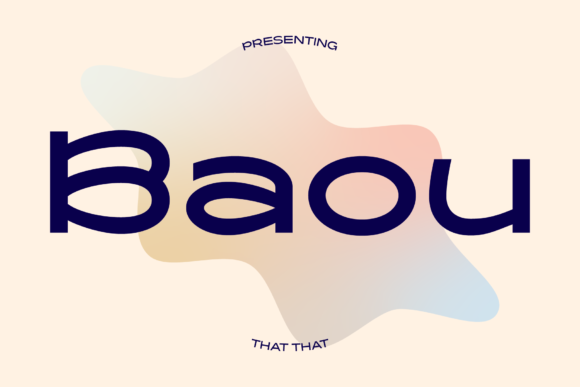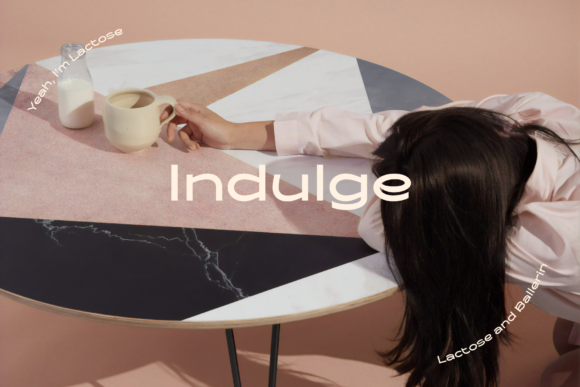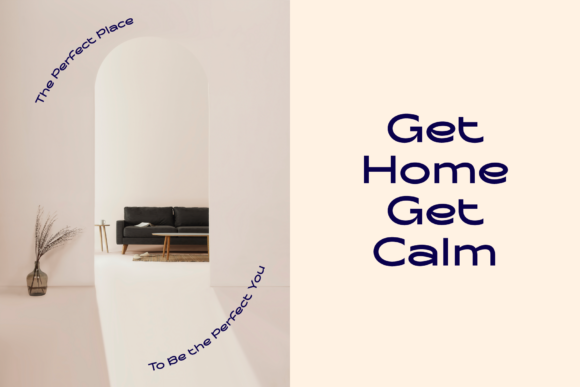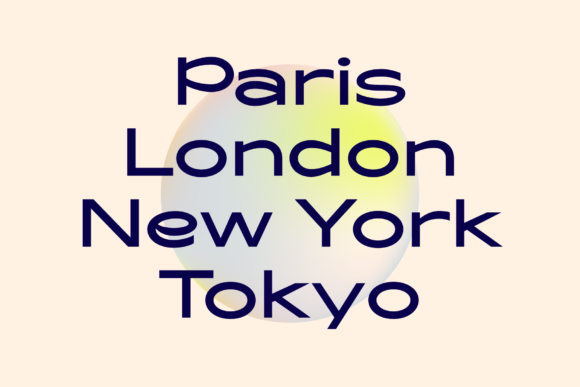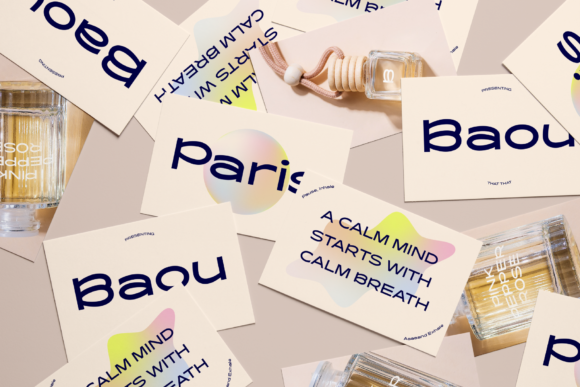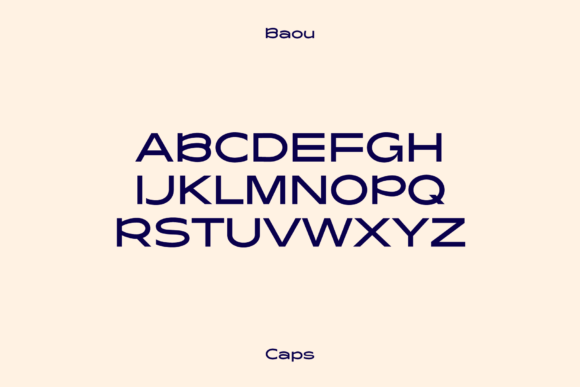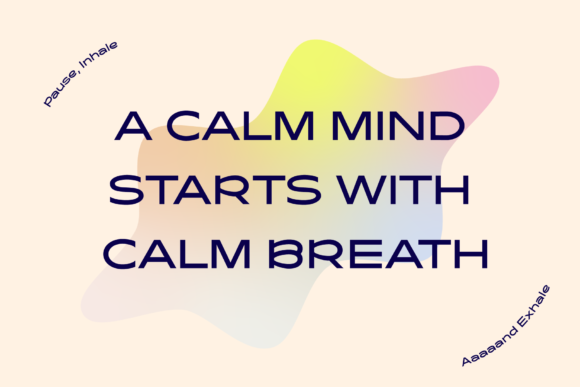
The Perfect Font for Making Your Creative Mark
Have you ever stared at a blank page, trying to conjure up the perfect font to match your vision? You know, that elusive combination of style and legibility that elevates your design from ordinary to extraordinary? That’s exactly what Baou Font is designed to deliver. With its bold, modern sans-serif style, this versatile font is perfect for making your creative mark on the world.
Whether you’re a seasoned designer or just starting out, Baou Font offers the perfect balance of personality and professionalism to take your designs to the next level. Its unique pinched curves and vertical terminals give it a distinctive edge that’s sure to grab attention. And with its super-wide pool of applications, you can use Baou Font to create stunning visuals for everything from Instagram posts to product labels.
Baou Font Key Features
- Font Family: Baou is a sans-serif font family designed for digital use.
- Font Size: Offers 7 weights ranging from Light (300) to Black (900), with corresponding italic styles.
- Resolution: Optimized for screen use at resolutions up to 300 DPI.
- Unique Characteristics: Baou features a clean and modern design with subtle rounded edges, making it suitable for a wide range of digital applications.
- Language Support: Supports a broad range of languages, including Latin, Cyrillic, and Greek scripts.
Design Review: Baou Font
As a designer, I was excited to dive into the Baou Font and see what it has to offer. Here’s my honest review:
- Unique Character Set: Baou Font has a distinct, quirky character set that’s perfect for adding a touch of whimsy to your designs.
- Customizable: The font offers a range of customization options, allowing you to adjust the weight, width, and style to suit your needs.
- Legibility: Despite its playful nature, Baou Font is surprisingly legible, making it a great choice for body text and headlines.
- Limited Font Sizes: Baou Font is best suited for larger font sizes, as smaller sizes can make the characters appear pixelated and blurry.
- No Comprehensive Language Support: While Baou Font includes support for Latin, Greek, and Cyrillic characters, it’s not comprehensive, which may limit its use for certain projects.
Overall, I think Baou Font is a great addition to any designer’s toolkit, particularly for projects that require a playful, whimsical touch. While it may have some limitations, its unique character set and customization options make it a standout choice. With a bit of creative experimentation, I’m confident that Baou Font can help designers create truly unique and effective designs.
Here are some tips and common use cases for Baou Font:
- Use Baou Font for creative and artistic projects, such as graphic design, typography, and branding.
- Pair Baou Font with other creative fonts to create a unique and eye-catching design.
- Use Baou Font for headings and titles to add a touch of elegance and sophistication.
- Experiment with different font sizes and colors to create a visually appealing design.
Alternatives to Baou Font
Montserrat is a sans-serif font that is highly legible and versatile. It is designed for digital use and is suitable for body text, headings, and titles. Montserrat is a great alternative to Baou Font for designers who want a clean and modern look. It is more geometric and has a stronger x-height, making it easier to read at small sizes.
Avenir is a sans-serif font that is known for its sleek and modern design. It is highly legible and suitable for a wide range of applications, from body text to headings and titles. Avenir is a good alternative to Baou Font for designers who want a font that is both elegant and professional. It has a more rounded feel than Baou Font, making it softer and more approachable.
Open Sans is a sans-serif font that is highly legible and versatile. It is designed for digital use and is suitable for body text, headings, and titles. Open Sans is a great alternative to Baou Font for designers who want a clean and modern look. It is more condensed than Baou Font, making it ideal for small screens and digital applications.